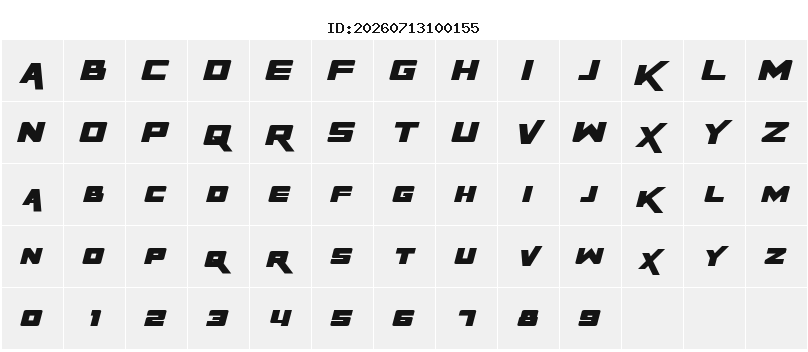
• Font Name: Rapier Zero
• Designer: Neale Davidson
About Rapier Zero.ttf
Rapier Zero.ttf is a modern, elegant sans-serif font designed for ultimate readability and visual harmony. Perfect for branding, headlines, web design, and print materials.